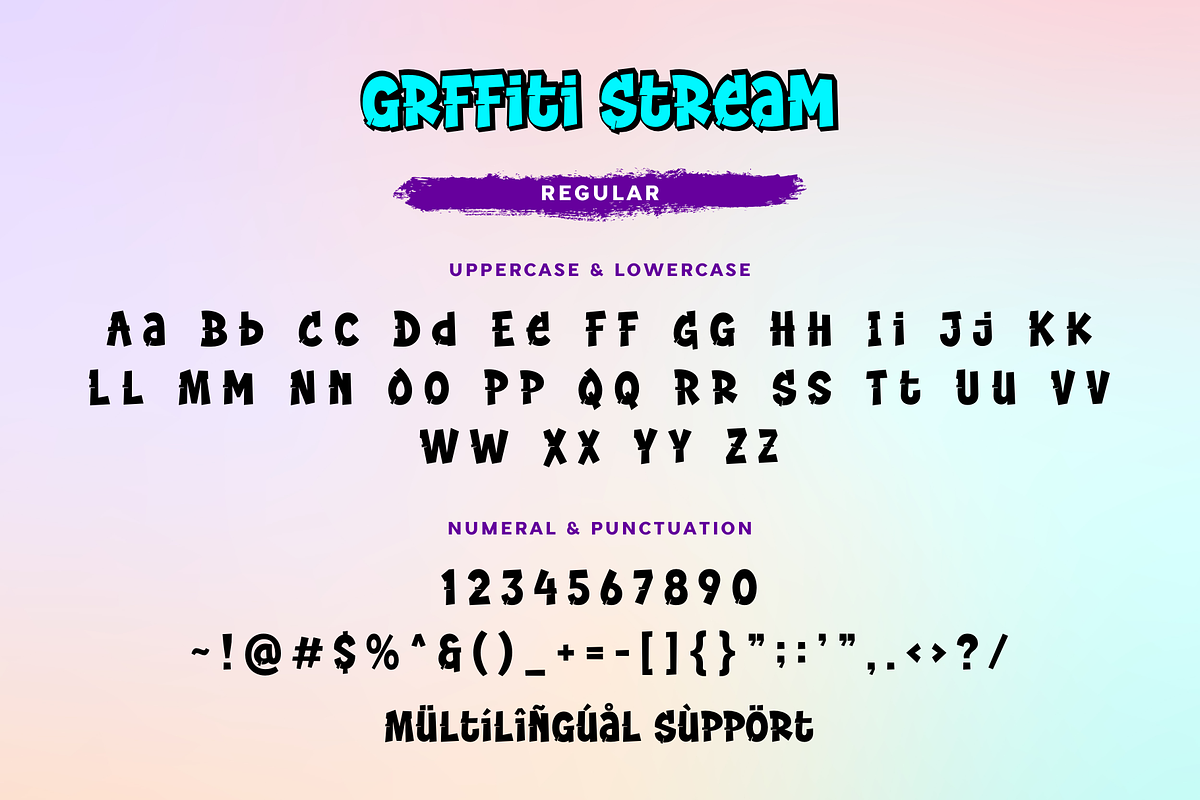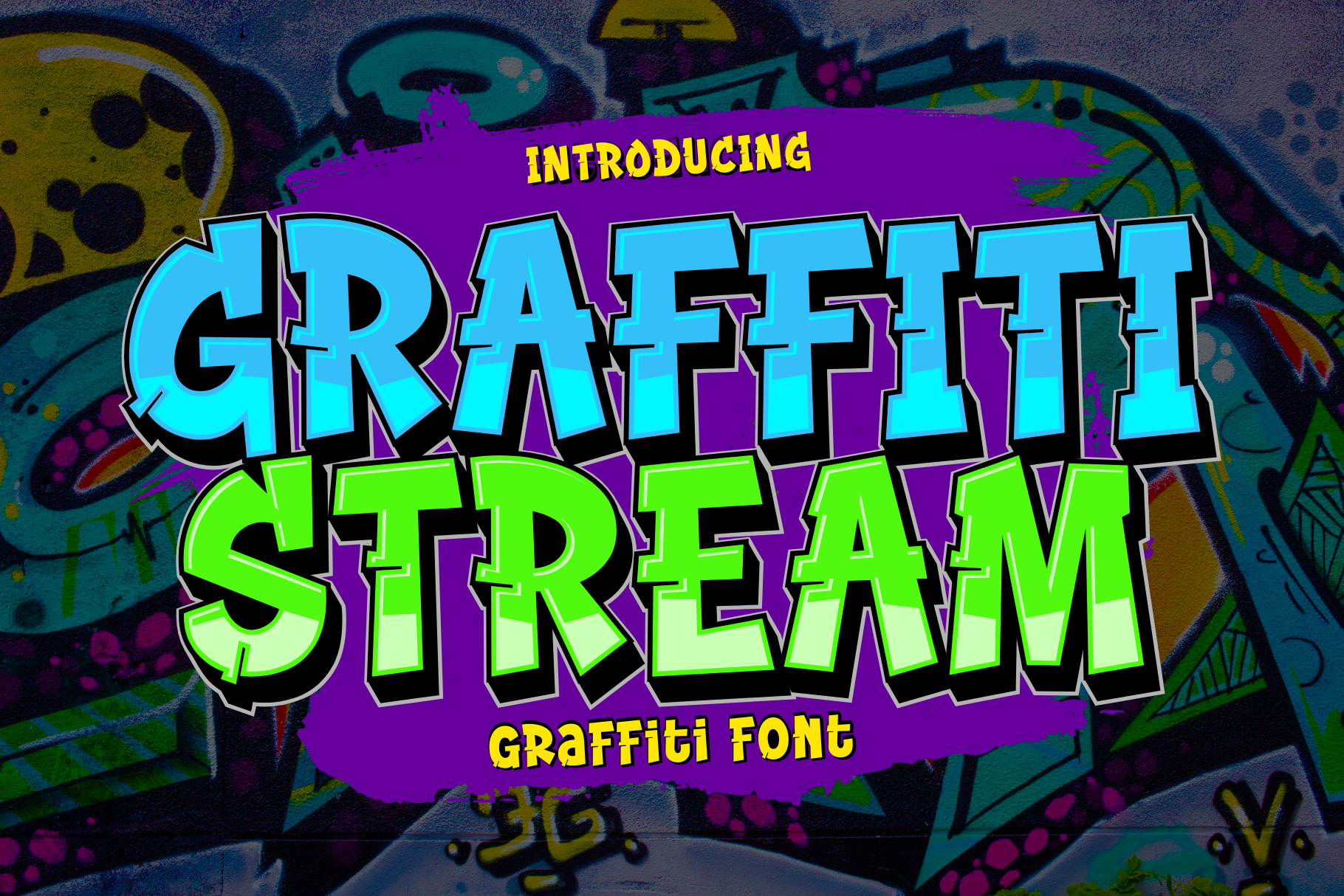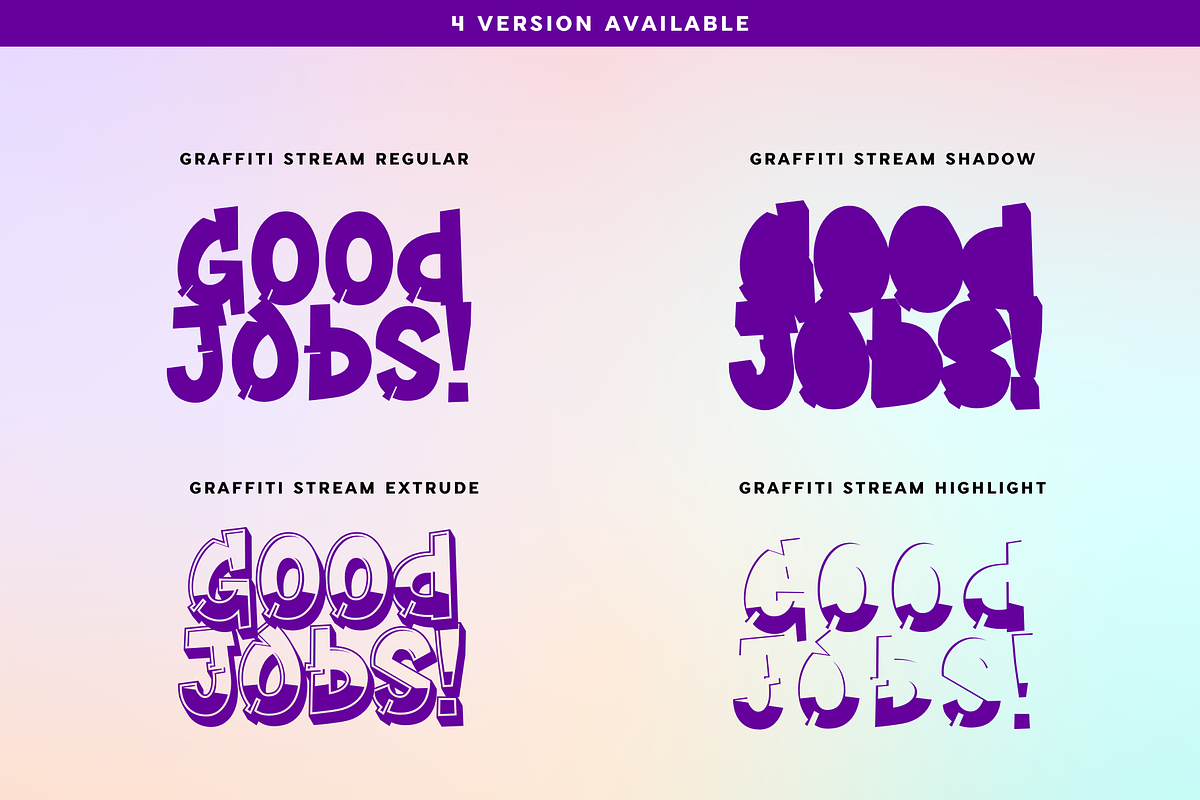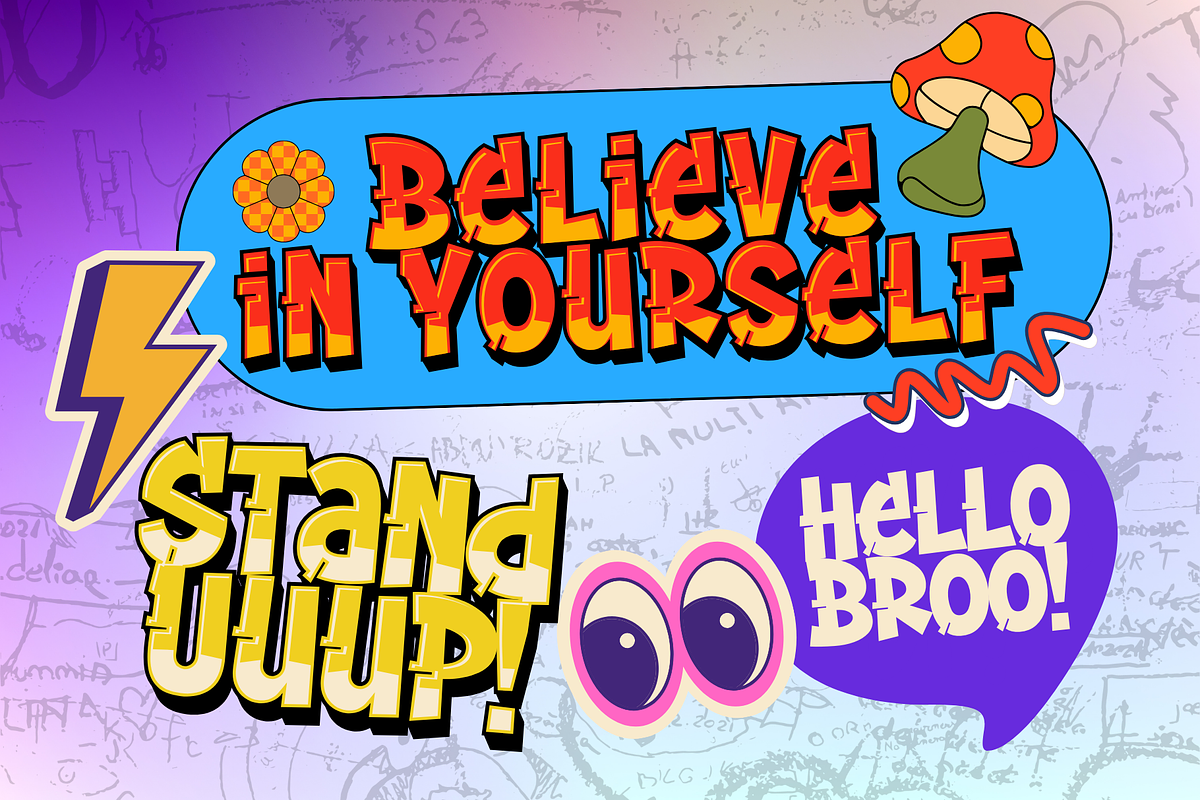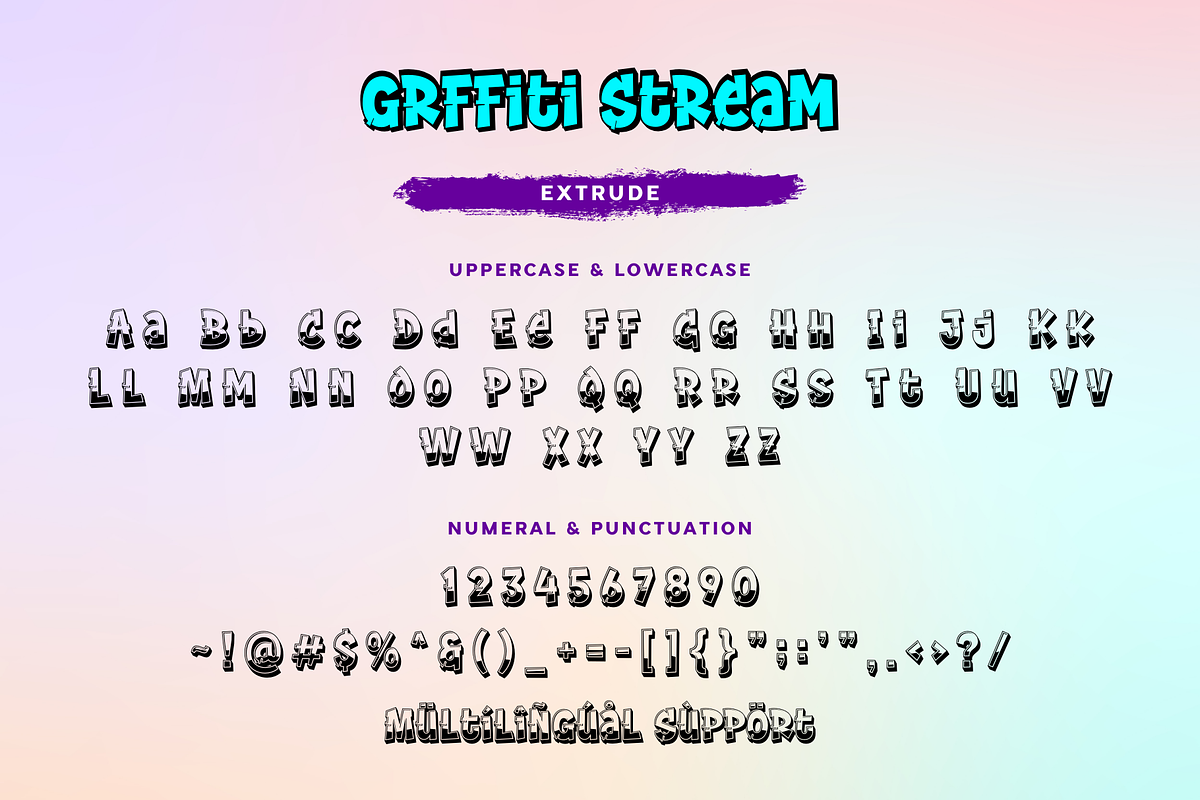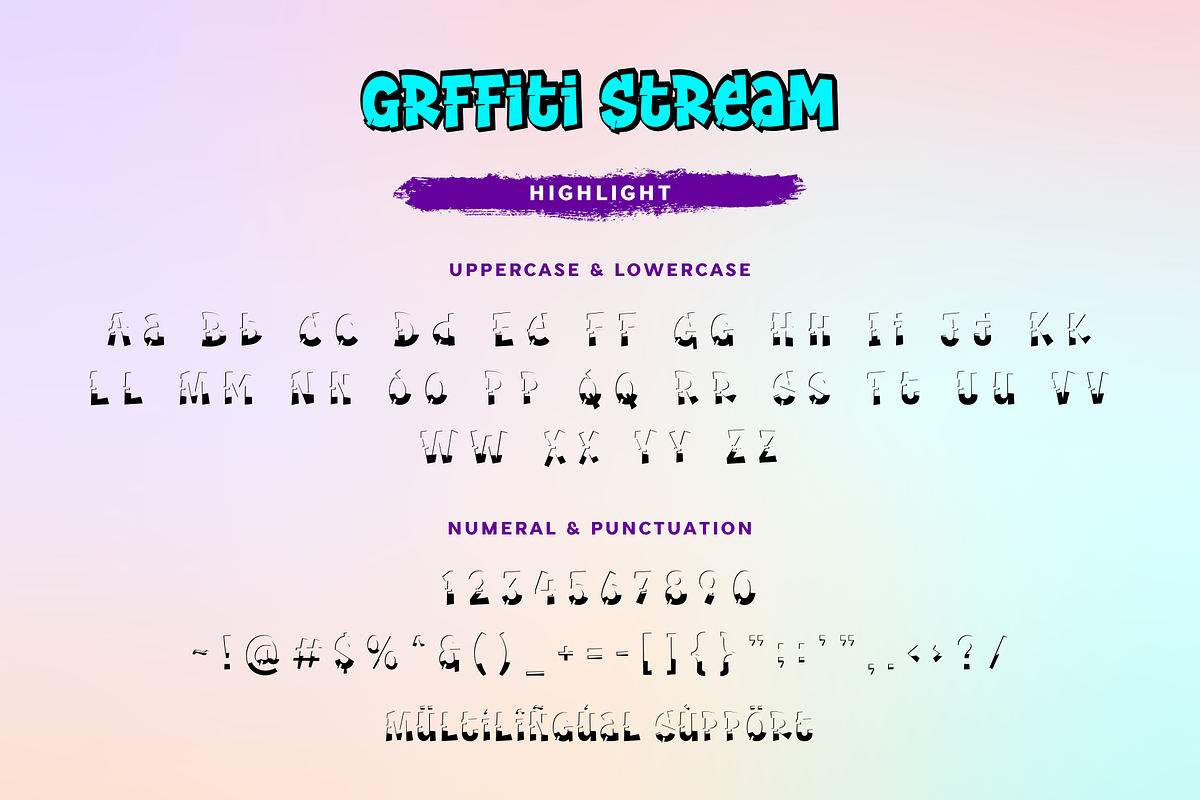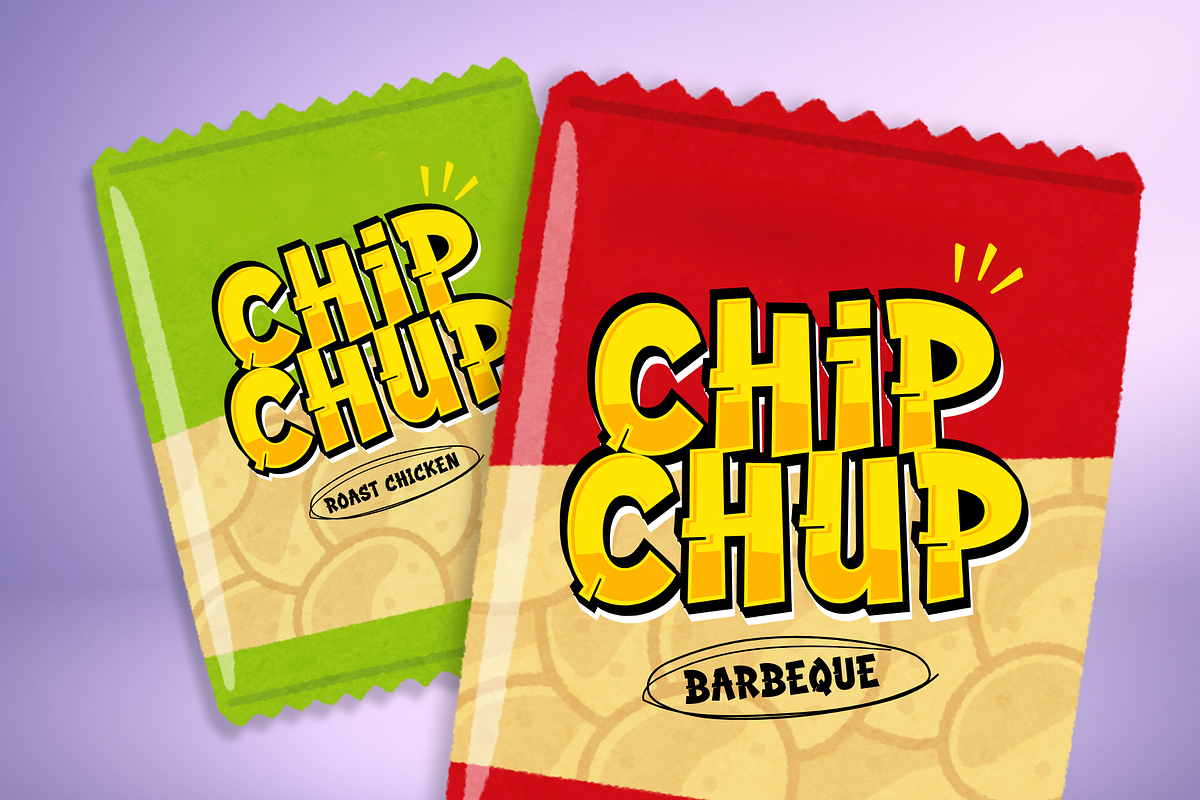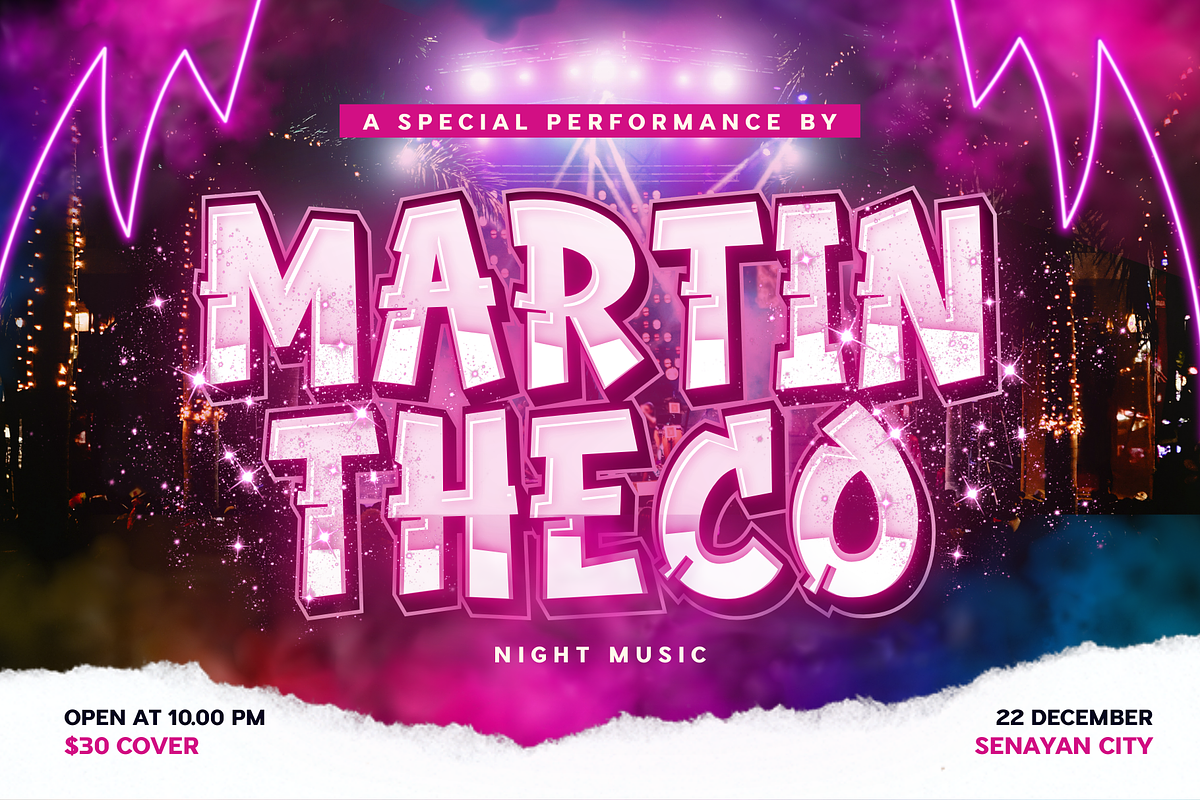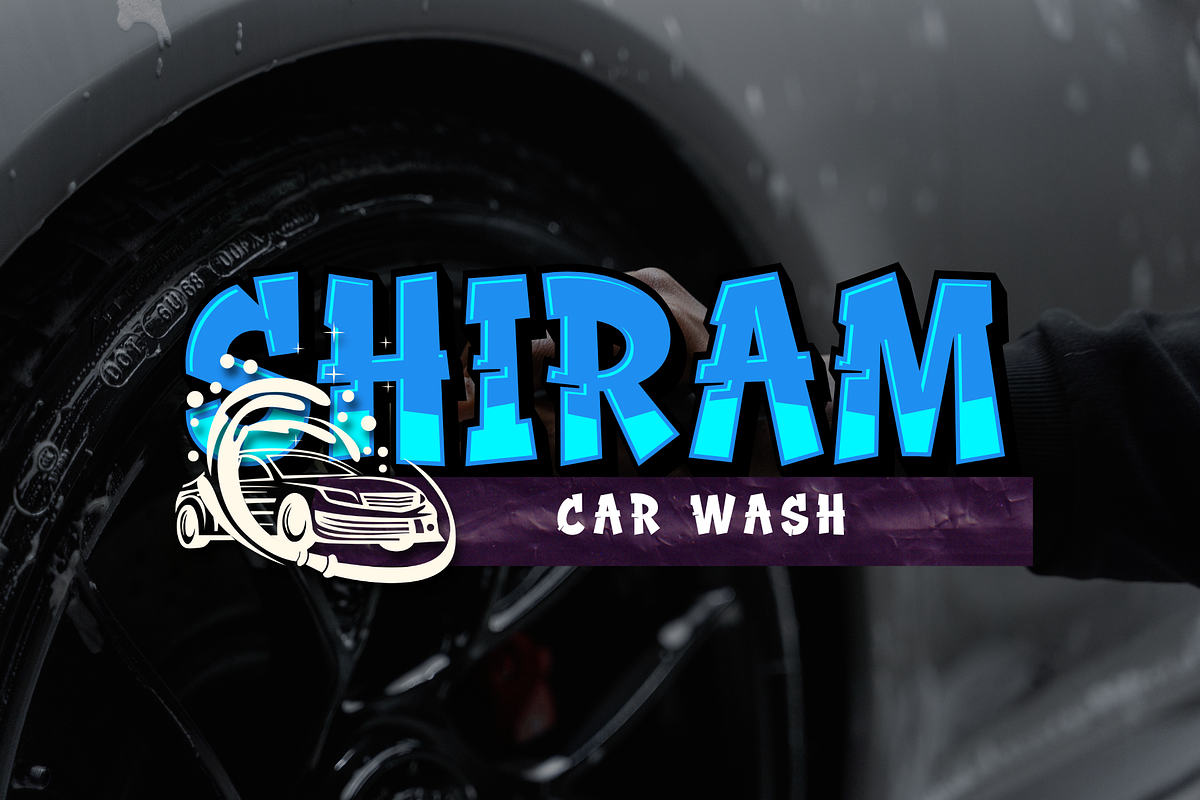
Graffiti Stream Font
Graffiti Stream is a bold and edgy graffiti font that captures the essence of urban art. Perfect for street-style designs, posters, logos, and creative projects, it adds a vibrant and rebellious touch to your work. Unleash your creativity with Graffiti Stream!
- 4 Style : Regular, Shadow, Extrude & Highlight